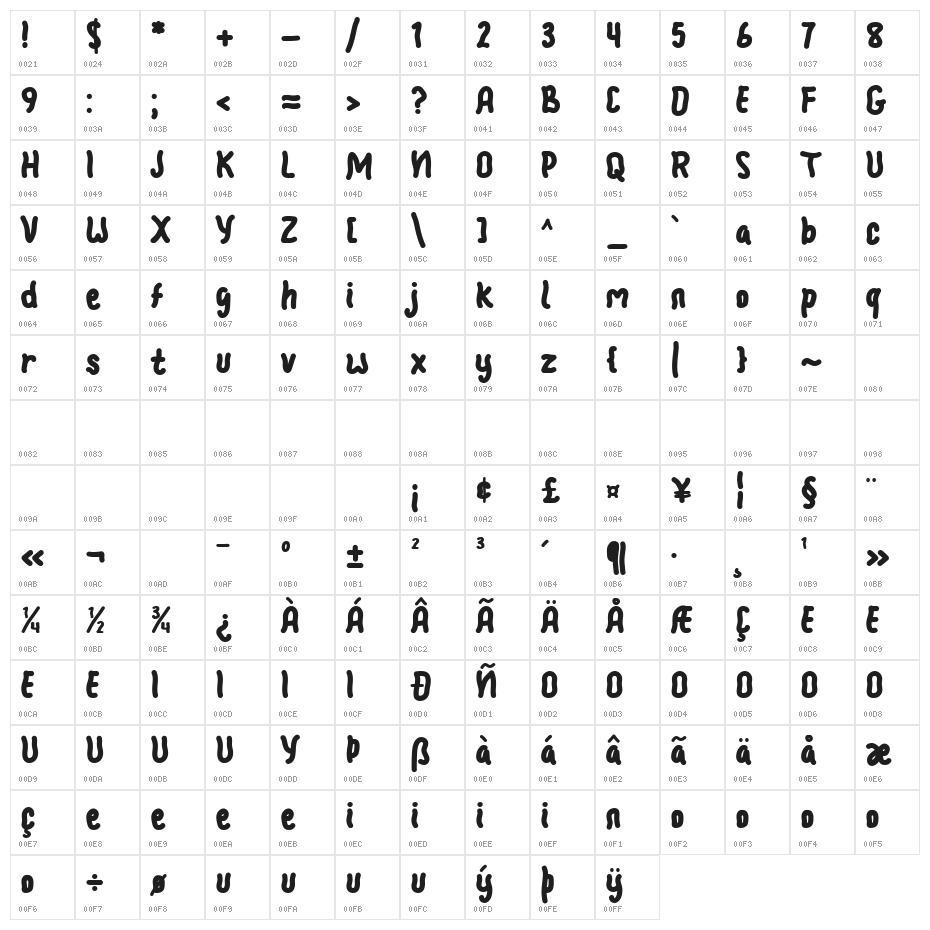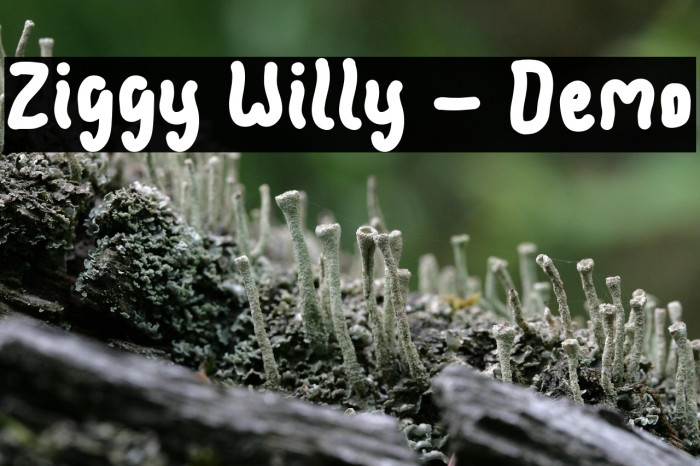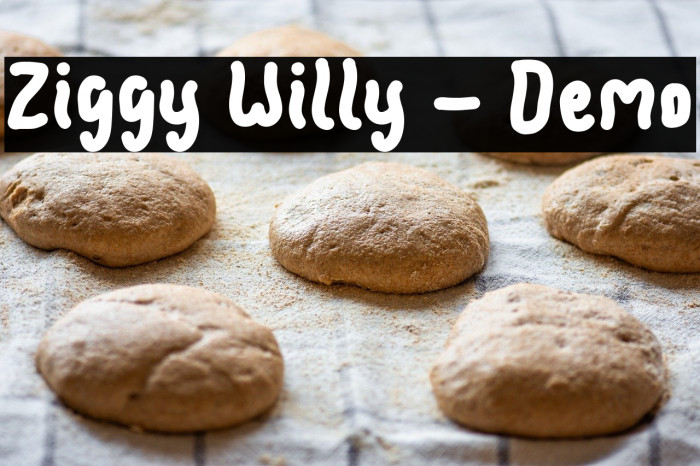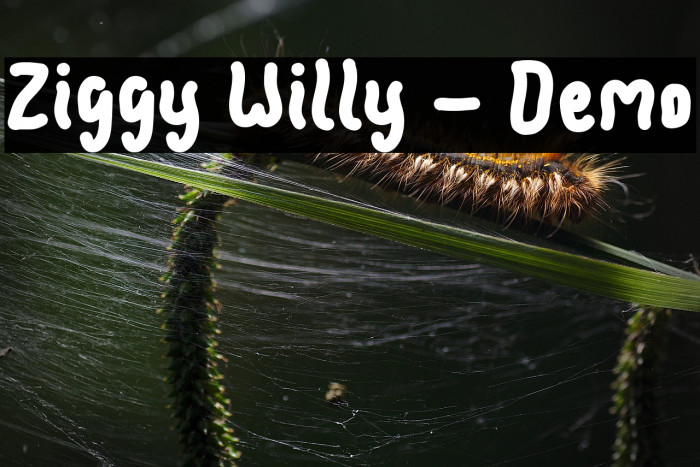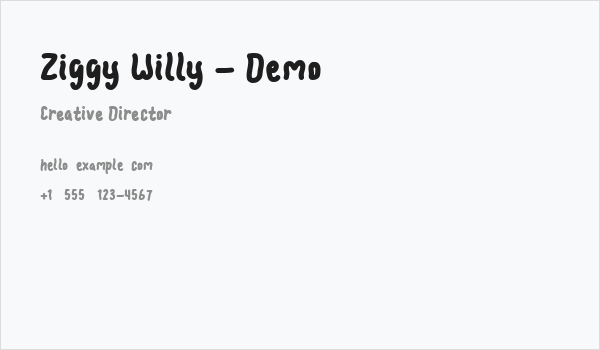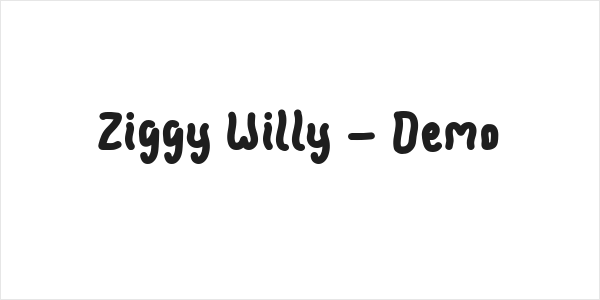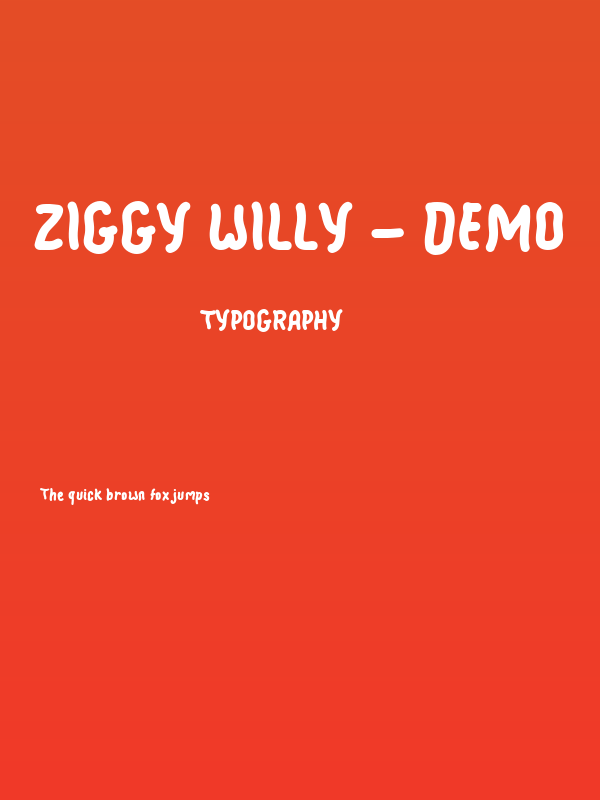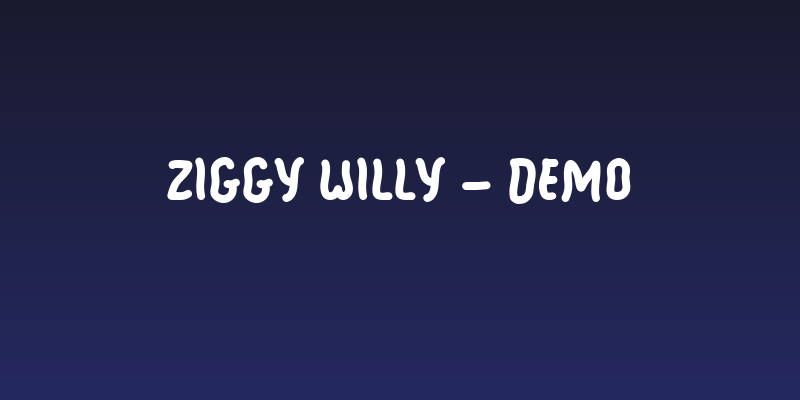
Ziggy Willy - Demo Font
Ziggy Willy - Demo Description
A playful, handwritten font with rounded edges and a casual style, suitable for informal and creative projects.
| Use Case | Headlines, Logos, Informal text |
| Proposed Projects | Children's books, greeting cards, casual branding. |